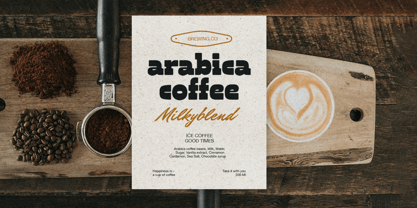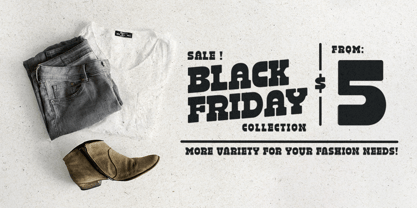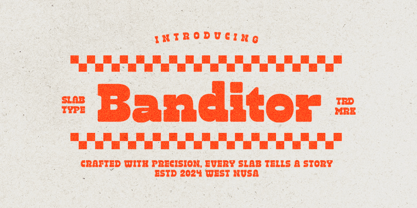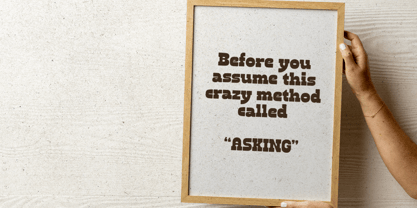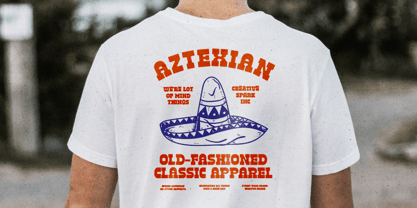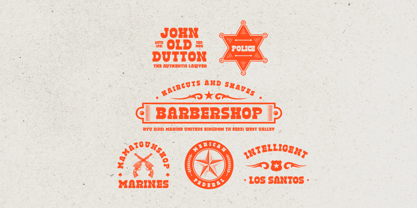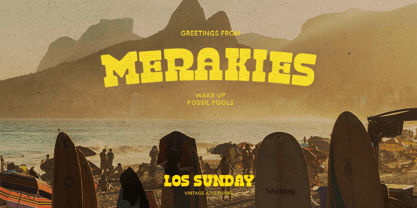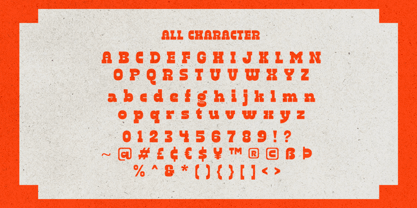
Banditor
by Bale Type
The Banditor Font Family was designed by Dzikrul Aulia and published by Bale Type. Banditor contains 2 styles and family package options.
Banditor is a bold and reverse slab serif. You can use this font for any purposes especially for cowboy themes. This font also suitable for branding, logo, retro design, and quotes. Banditor also support multi language.